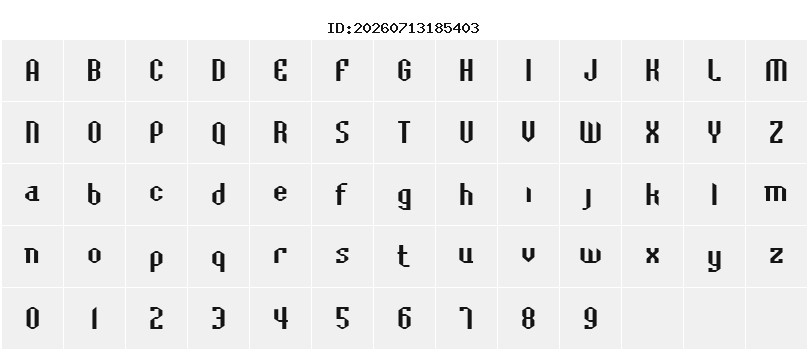
• Font Name: BaccusBevelExp
• Font ID: Weatherly Systems, Inc. BaccusBevelExp Regular
• Full Font Name: BaccusBevelExp Regular
• PostScript Name: BaccusBevelExp
About BaccusBevelExp.ttf
BaccusBevelExp.ttf is a modern, elegant sans-serif font designed for ultimate readability and visual harmony. Perfect for branding, headlines, web design, and print materials.